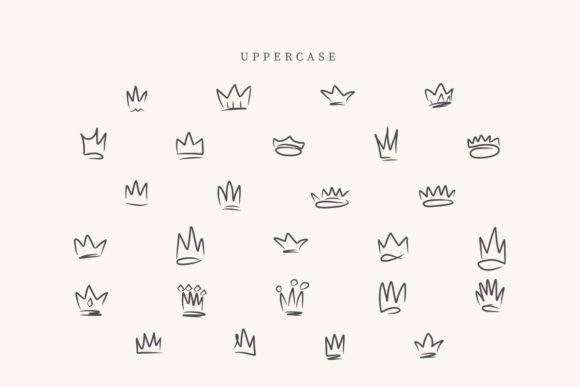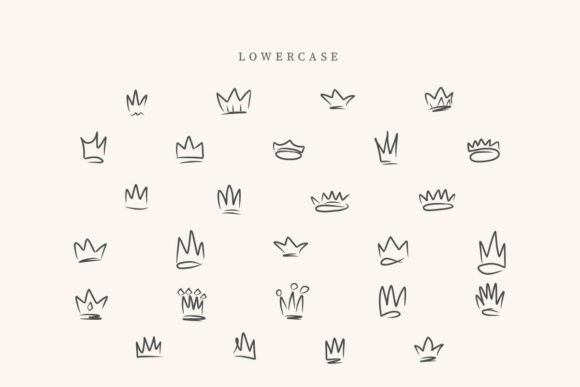
Baby Crown Font: The Ultimate Dingbat Font for Crafty Designs
Are you a designer or crafter looking for a unique and adorable font to add a touch of royalty to your projects? Look no further than the Baby Crown Font! This dingbat font is a cute doodle illustration of a crown, perfect for a variety of craft needs. In this article, we’ll explore the features and uses of the Baby Crown Font, and why it’s a must-have for any crafty enthusiast.
What is Baby Crown Font?
Baby Crown Font is a dingbat font that features an illustration of a crown, making it a perfect addition to any design that requires a touch of royalty or whimsy. The font is designed to be cute and playful, making it suitable for a wide range of projects, from t-shirts and logos to decorations, clip art, stickers, planners, journals, scrapbooks, invitations, birthdays, weddings, and more.
Features of Baby Crown Font
- Cute and Playful Design: The Baby Crown Font features a unique and adorable design that is sure to add a touch of personality to any project.
- Dingbat Font: As a dingbat font, Baby Crown Font is made up of illustrations rather than traditional letters, making it perfect for adding visual interest to designs.
- Scalable: The font is highly scalable, allowing you to use it in a variety of projects, from small stickers to large banners.
- Easily Editable: The font is easily editable, allowing you to customize it to fit your design needs.
Uses of Baby Crown Font
The Baby Crown Font is incredibly versatile and can be used in a wide range of projects, including:
- T-Shirts and Apparel: Add a touch of royalty to your t-shirt designs with the Baby Crown Font.
- Logos and Branding: Use the font to create unique and memorable logos for your business or brand.
- Decorations and Signage: Add a playful touch to your decorations and signage with the Baby Crown Font.
- Clip Art and Stickers: Use the font to create custom clip art and stickers for your projects.
- Planners and Journals: Add a touch of personality to your planners and journals with the Baby Crown Font.
- Scrapbooks and Invitations: Use the font to create unique and memorable scrapbooks and invitations.
- Birthdays and Weddings: Add a touch of royalty to your birthday and wedding designs with the Baby Crown Font.
Why Choose Baby Crown Font?
So why choose the Baby Crown Font for your design needs? Here are just a few reasons:
- Unique and Adorable Design: The Baby Crown Font features a unique and adorable design that is sure to stand out in any project.
- Versatile: The font is incredibly versatile and can be used in a wide range of projects.
- Easily Customizable: The font is easily customizable, allowing you to tailor it to fit your design needs.
- High-Quality: The font is high-quality and highly scalable, making it perfect for use in a variety of projects.
In conclusion, the Baby Crown Font is a must-have for any designer or crafter looking to add a touch of royalty to their projects. With its unique and adorable design, versatility, and ease of use, this dingbat font is perfect for a wide range of craft needs. Whether you’re designing t-shirts, logos, decorations, or invitations, the Baby Crown Font is sure to add a touch of personality and whimsy to your designs.
Tips and Tricks for Using Baby Crown Font
Here are a few tips and tricks for getting the most out of the Baby Crown Font:
- Experiment with Different Sizes: Don’t be afraid to experiment with different sizes and scales to find the perfect fit for your project.
- Combine with Other Fonts: Try combining the Baby Crown Font with other fonts to create unique and interesting typography.
- Use in Combination with Images: Use the font in combination with images or illustrations to add an extra layer of visual interest to your designs.